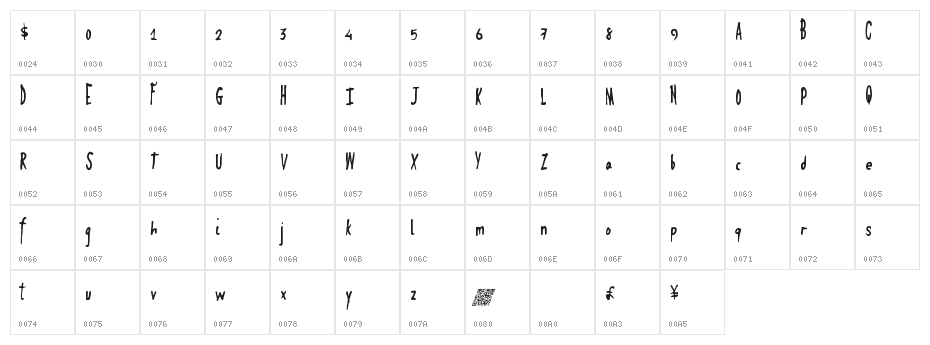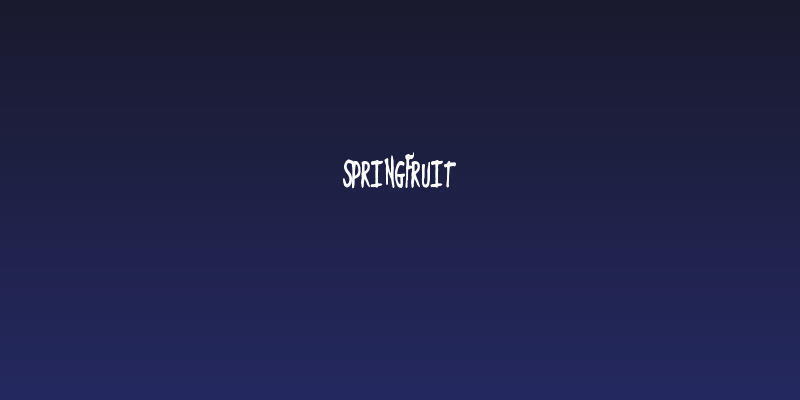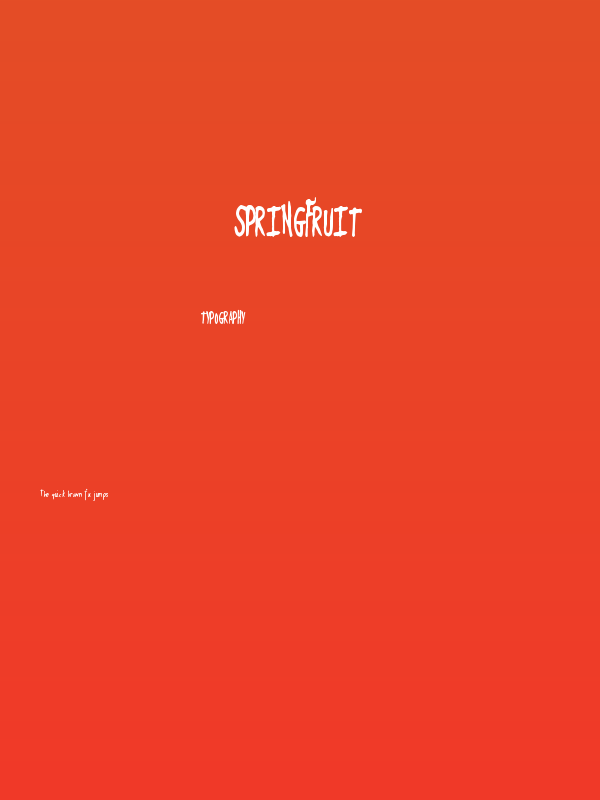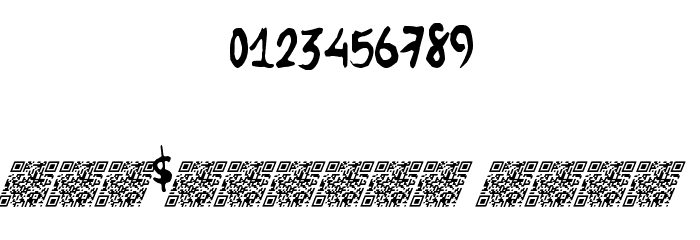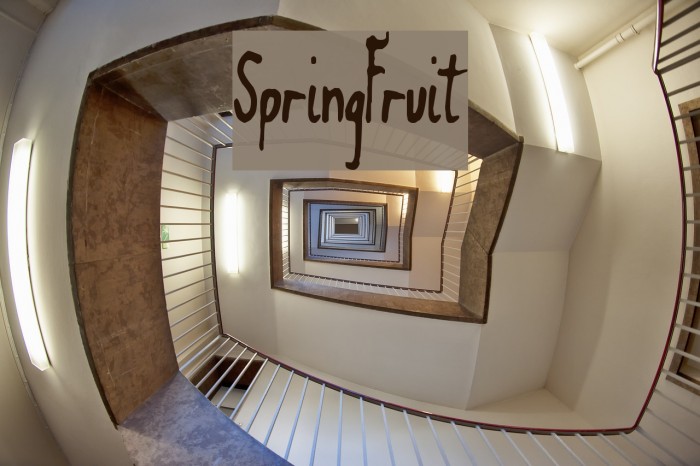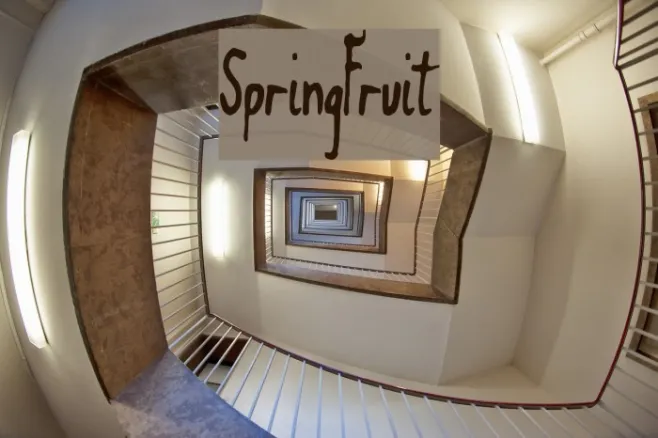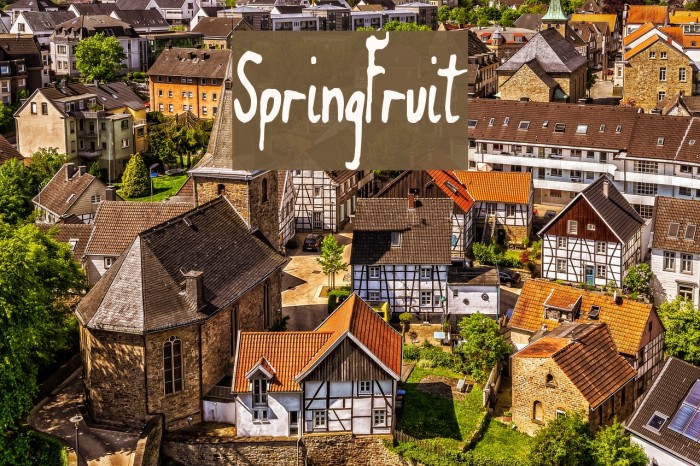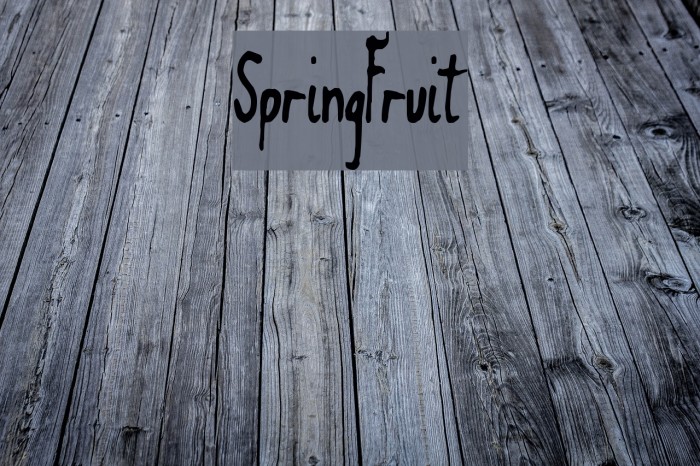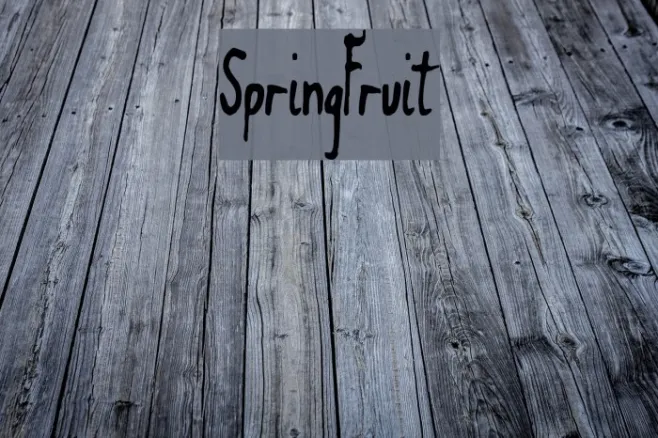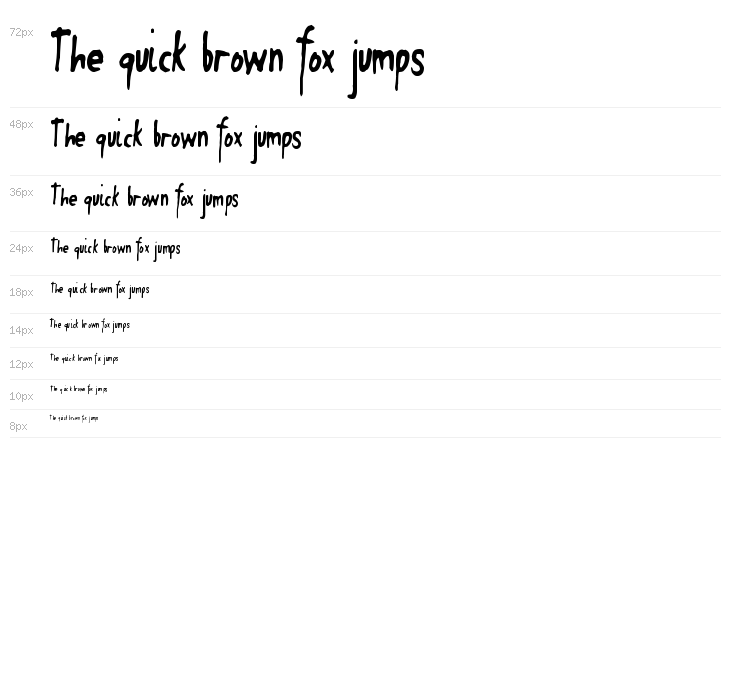
SpringFruit Font
SpringFruit Description
This font exhibits a playful and informal handwritten style, characterized by its irregular and slightly whimsical letterforms. The uppercase letters are bold and slightly condensed, giving a sense of energy and movement. The lowercase letters maintain a consistent style with a casual flow, enhancing the font's approachable and friendly appearance. The numerals are clear and legible, matching the overall playful aesthetic. Special characters are integrated seamlessly, maintaining the font's unique style. This font's distinctive personality makes it suitable for creative and informal applications.